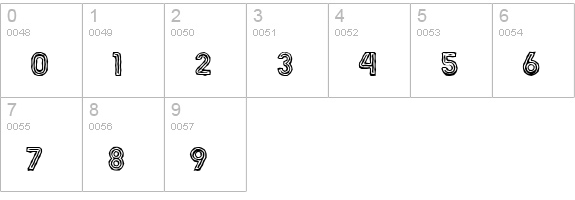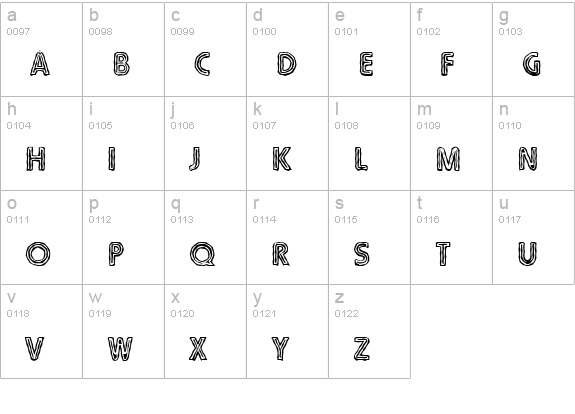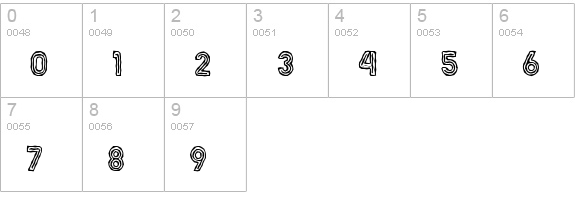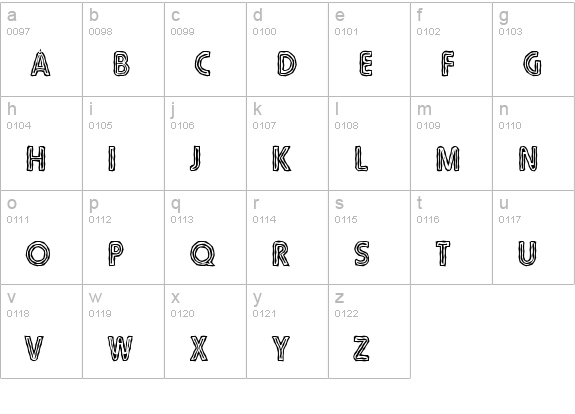
TBJ Font Details
Introducing TBJ font, a captivating display typeface that effortlessly combines elegance and modernity. With its sleek lines and stylish curves, TBJ font exudes a sense of sophistication and uniqueness that will make any design project stand out. This versatile font is perfect for a wide range of creative applications, from logos and branding to headlines and posters. Its carefully crafted letterforms ensure legibility at any size, making it suitable for both print and digital designs. But what sets TBJ font apart from the rest is its availability. Yes, you heard it right – this font is absolutely free! You can freely download TBJ font at FontsMarket.com, ensuring that your design endeavors are not burdened by any costs. Whether you are a professional designer or a passionate hobbyist, TBJ font will undoubtedly become your go-to choice. Its versatility, elegance, and free accessibility all make it a must-have addition to any typographic toolbox. So why wait? Download TBJ font today and unlock a world of creative possibilities.